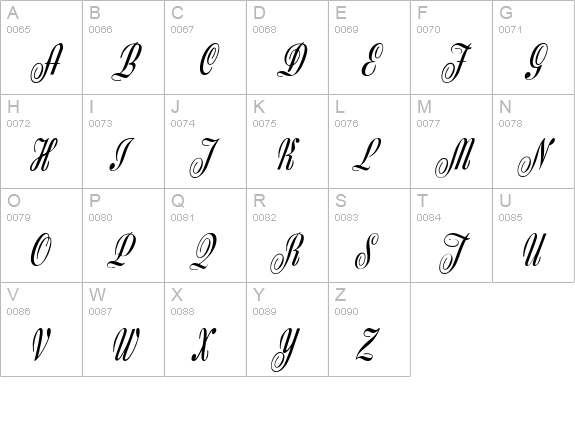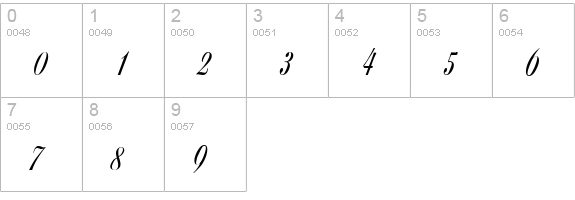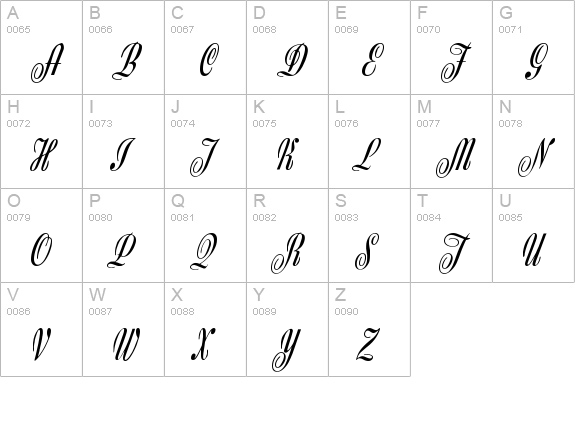
Z650-Script-Regular Font Details
Z650-Script-Regular is the standard, neutral variant in the Z650 typeface family \xE2\x80\x94 well suited to general body text, paragraphs, and standard typographic work.
Z650-Script-Regular is a modern and stylish font that exudes elegance and sophistication. Its flowing lines and delicate curves make it perfect for adding a touch of sophistication to any design project. Whether you are creating wedding invitations, branding materials, or social media graphics, this font will elevate your work to the next level. What makes Z650-Script-Regular even more appealing is that it is available for free download at FontsMarket.com. This means you can easily access and use this beautiful font in your projects without any cost. Don't miss out on the opportunity to enhance your designs with this stunning typeface. Download Z650-Script-Regular today and elevate your creations with its timeless charm and beauty.